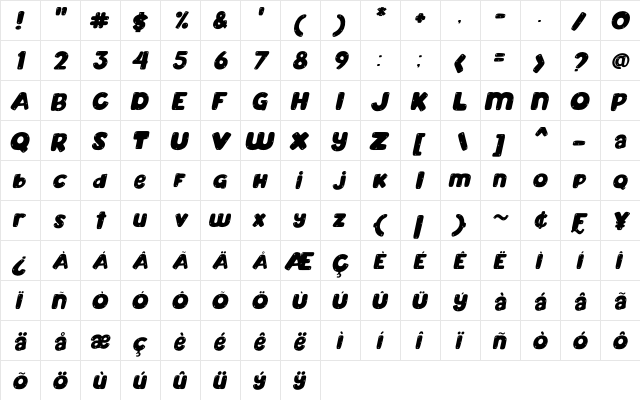
Mahoney Twinkle Tilted Italic
Design Context for Mahoney Twinkle Tilted Typeface
Mahoney Twinkle Tilted is a composed and adaptable typeface that performs quietly and consistently across a wide range of design contexts. The slanted form adds forward momentum and visual energy.
Pro Tip: Use Mahoney Twinkle Tilted for emphasis, pull quotes, and subheadings where its slanted energy can add rhythm to the layout.